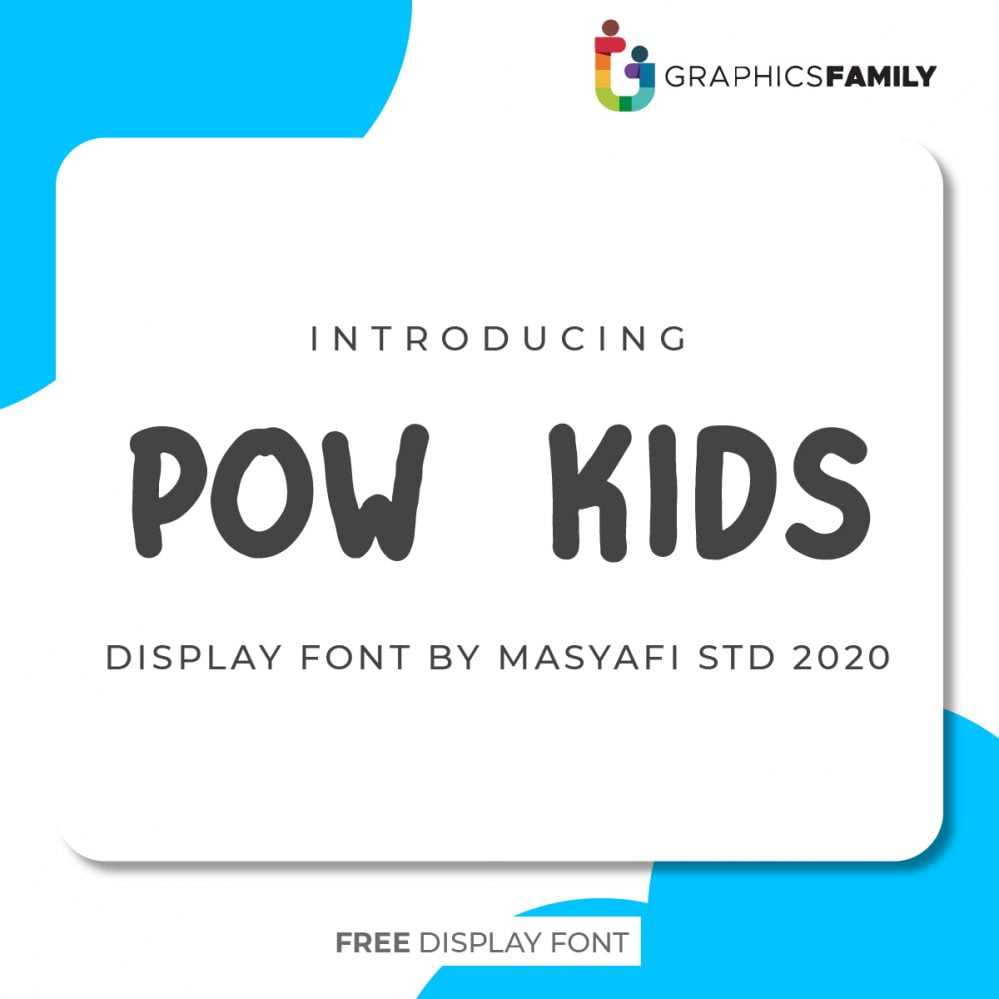
Pow Kids Font – Download Grátis
Pow Kids Font Pow Kids is a cute and fun display font. It embodies playfulness and authenticity and is the perfect choice for any children activity or school project. Add this chunky lettered font to your designs and notice how it makes them come alive!